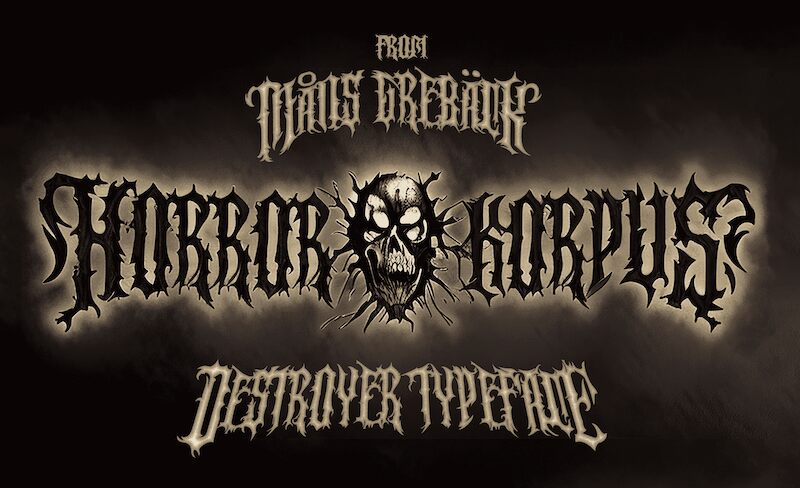
Horror Korpus Clean, designed by Mans Greback, is a display font that exudes a scary and eerie vibe. With its extra-condensed width, it is the perfect choice for projects that require a bold and intense presence.
This font is ideal for heavy metal band logos, creating an edgy and rebellious aesthetic. Additionally, it is well-suited for horror movie posters, adding a fiery and dark dimension to your designs.
Let Horror Korpus Clean unleash your creativity and transform your projects into captivating visual experiences.
Write % after any word to make it into a symmetric logo.
Example: Monogram%
Use ( ) { } [ ] < > around any word to give it wings.
Example:
Use ≠ ~ to make demonic symbols like devils and skulls.
Example: scarymovie